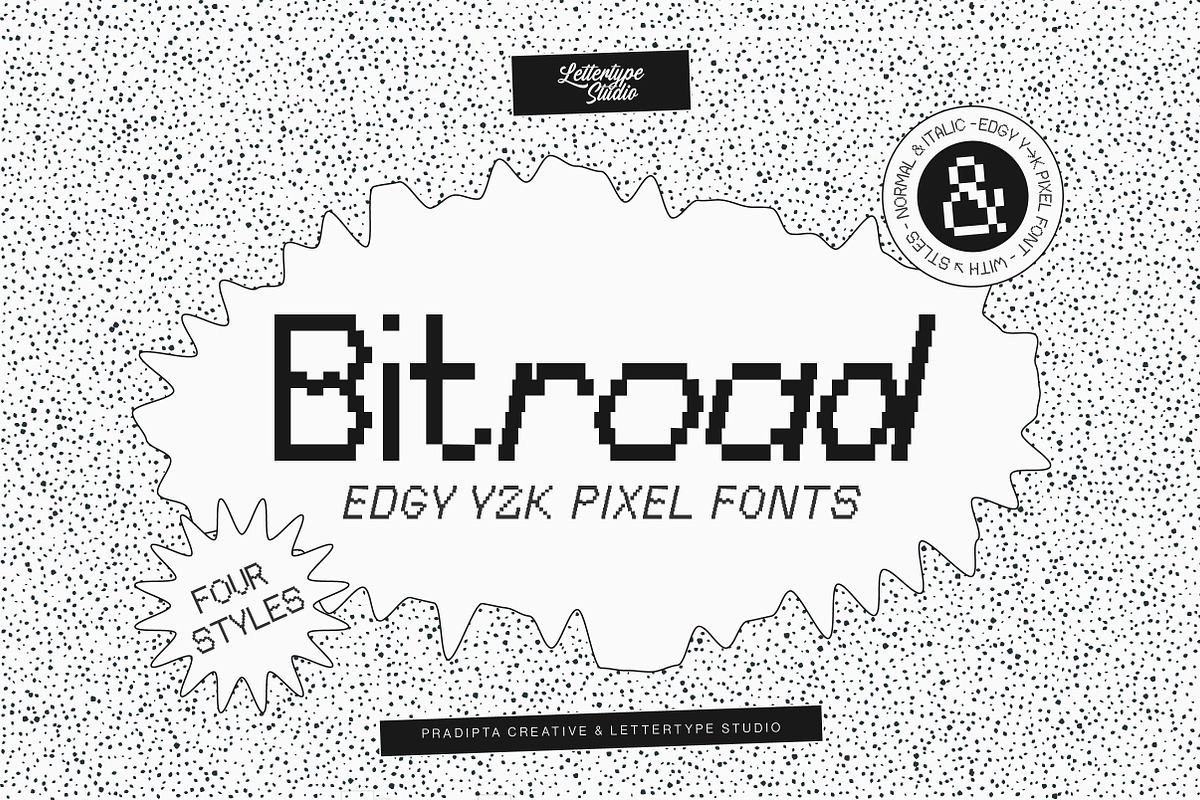
Bitroad Edgy Y2K Pixel Font Free Download
Please note, you must purchase this font for commercial use. However, you can easily download Bitroad Edgy Y2K Pixel Font Free Download for personal use and testing purposes. Bitroad Edgy Y2K Pixel Font is a bold and retro-inspired typeface with a pixelated style that reflects the edgy, tech-driven aesthetic of the early 2000s. Perfect for projects that require a Y2K or digital feel, this font works well for gaming, tech branding, websites, and pop culture designs. Whether you're working on a futuristic logo, a nostalgic campaign, or a digital art project, Bitroad Edgy Y2K Pixel Font Free Download adds a unique, eye-catching touch to your typography. Download Bitroad Edgy Y2K Pixel Font Free Download today and explore its potential before opting for a commercial license.